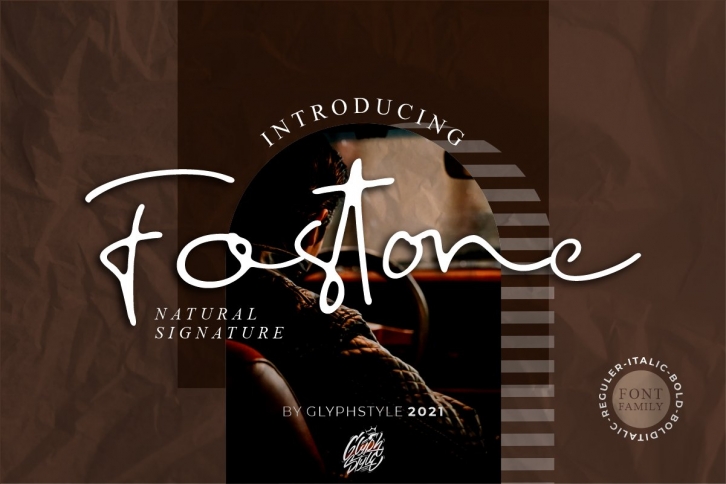
Fostone Natural Signature is a great font that was designed by GlyphStyle. Imagine the amount of combinations you can create using this font! The archive is 17.89 MB and it was released on April 6, 2021. Fostone Natural Signature looks beautiful on wedding invitations, greeting cards, logos, posters, labels, t-shirt designs, logos, business cards and is perfect for use in ink or watercolor works, fashion, magazines, packaging and food menus, children's books and more!